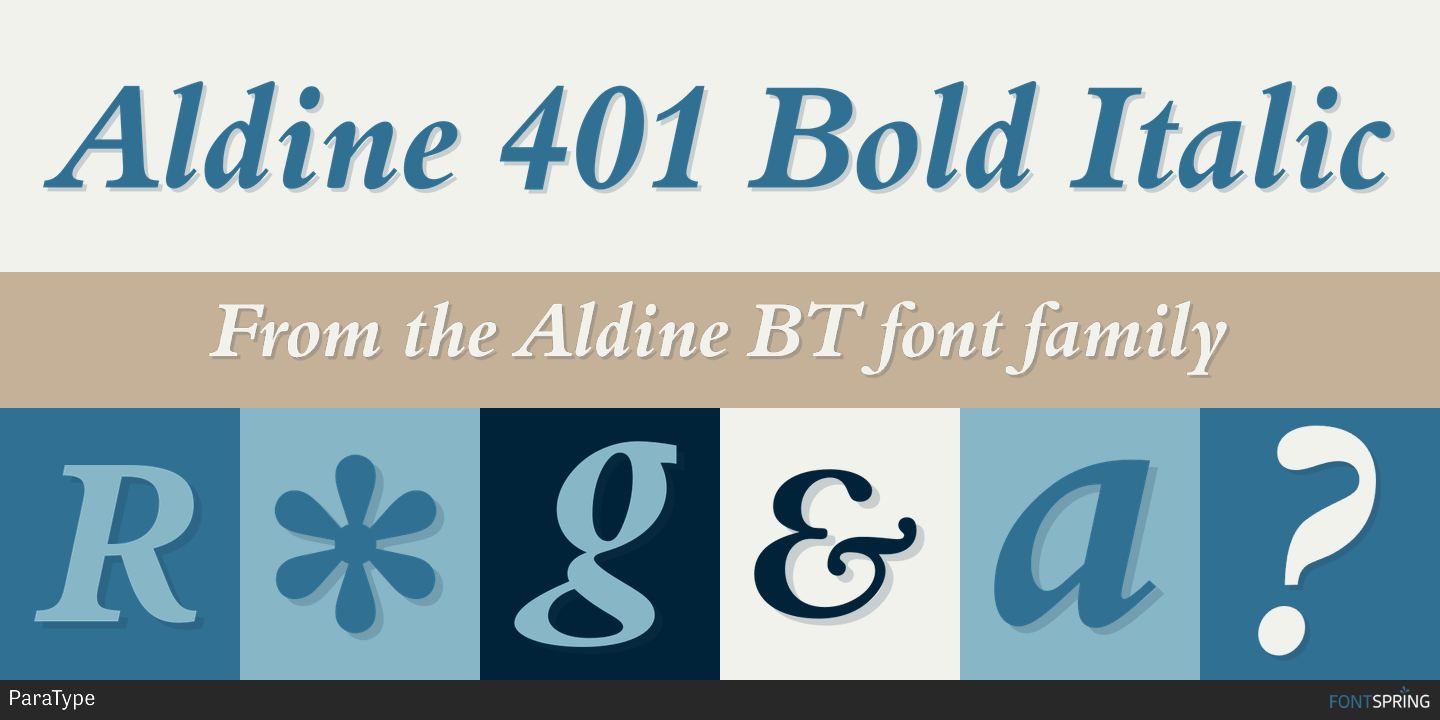
Aldine 401 Bold Italic
Designed by Isabella Chaeva, Aldine BT is a serif font family. This typeface has four styles and was published by ParaType.
Aldine 401 is a Bitstream version of Bembo type family. It was designed on the base of artwork of Francesco Griffo for Aldus Manutius. The first time the font appeared in “De Aetna” in 1495 — the book by Pietro Bembo about his journey to Mount Etna. Griffo’s design is one of the first old style typefaces, it was followed by Garamond and the forerunner for the standard text types in Europe for the next two centuries. A modern version was designed in Monotype under the supervision of Stanley Morison the in 1929 and got the name Bembo. Until now Aldine 401 is still very popular in book design due to its well-proportioned classic letterforms and lack of peculiarities. The italic was based on the handwriting of Giovanni Tagliente of the beginning of 16th century. Books and other texts set in Aldine 401 can encompass a large variety of subjects and formats because of its quiet classical beauty and its high readability. Cyrillic version was developed by Isabella Chaeva and released by ParaType in 2008.
Designer Isabella Chaeva